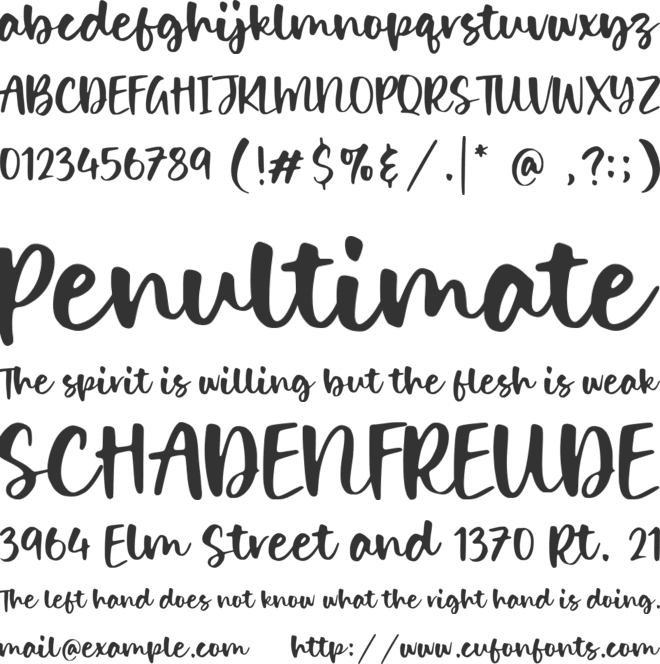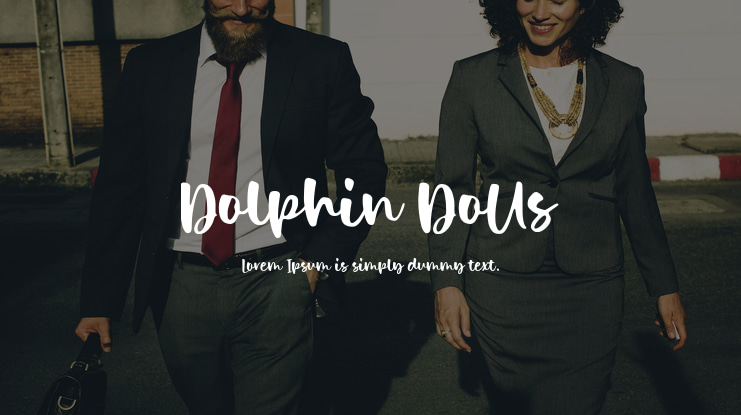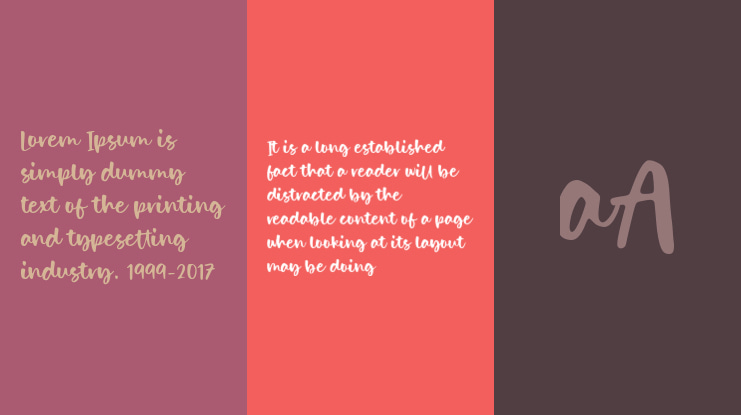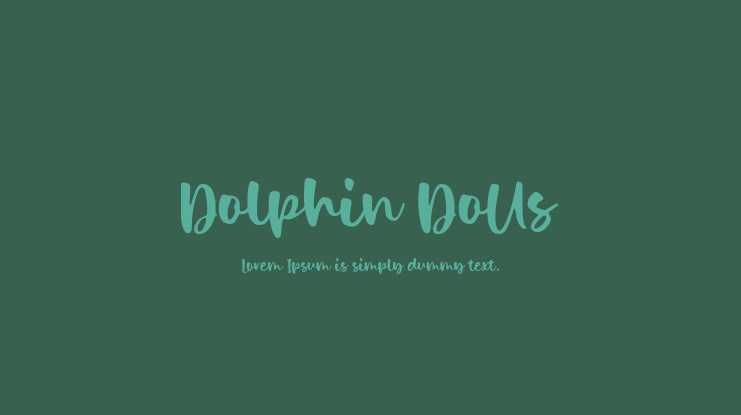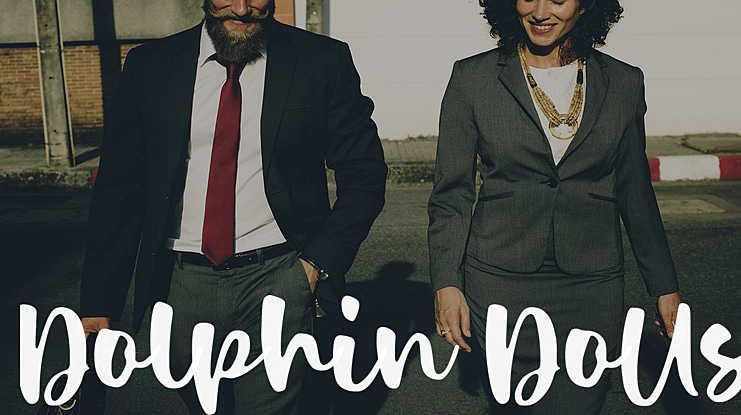
Dolphin Dolls Font
Proudly Present, Dolphin Dolls Font.
Dolphin Dolls is a Handbrushed Script Font.
Dolphin Dolls is a cute and vintage styled handwritten font. Whatever the topic, this font will be a wonderful asset to your font library, as it has the potential to enhance any creation.